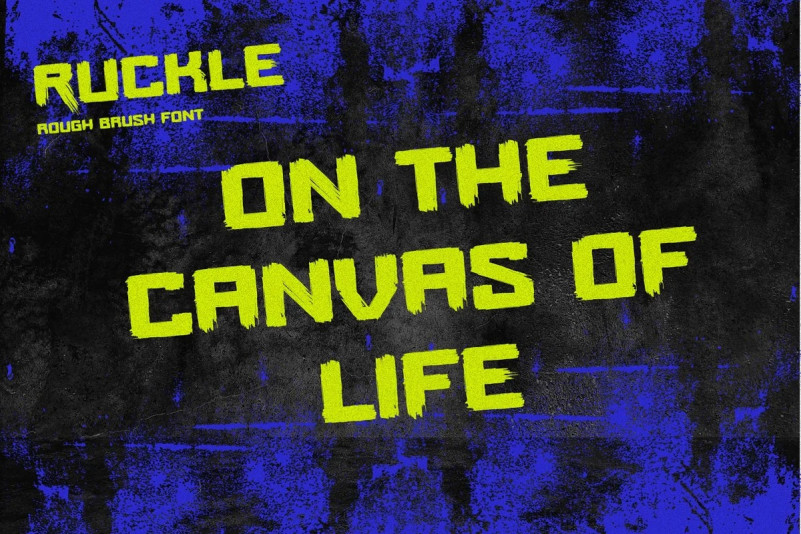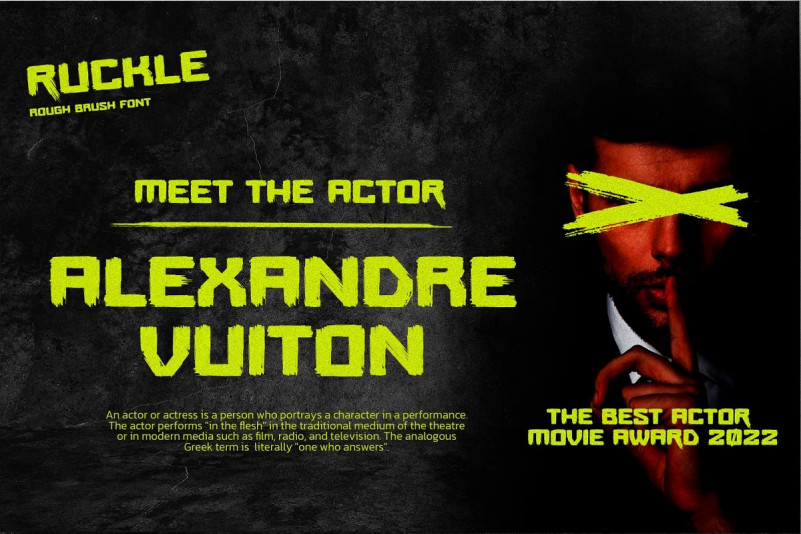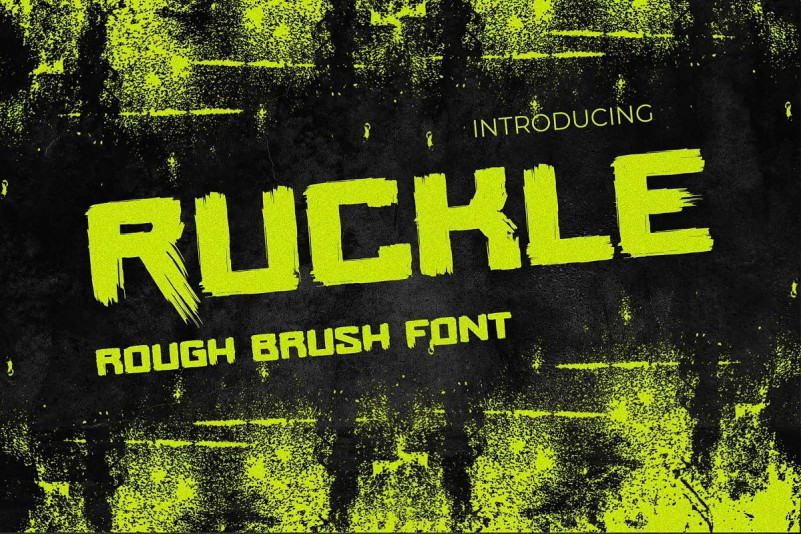
Ruckle Font
Hello Everyone, introduce our new product Font RUCKLE is a Rough Brush Font.This is a Textured Natural Style and classy style with a clear style and dramatic movement. This font RUCKLE is great for your next creative project such as logos, printed quotes, invitations, cards, product packaging, headers, Logotype, Letterhead, Poster, Design this font is great for your creative projects such as watermark on photography, and perfect for logos & branding, invitation,advertisements,product designs, stationery, wedding designs,label ,product packaging, special events or anything that need handwritting taste. That is has charming, authentic and relaxed characteristic more natural look to your text. You can activate Alternate OpenType panel.